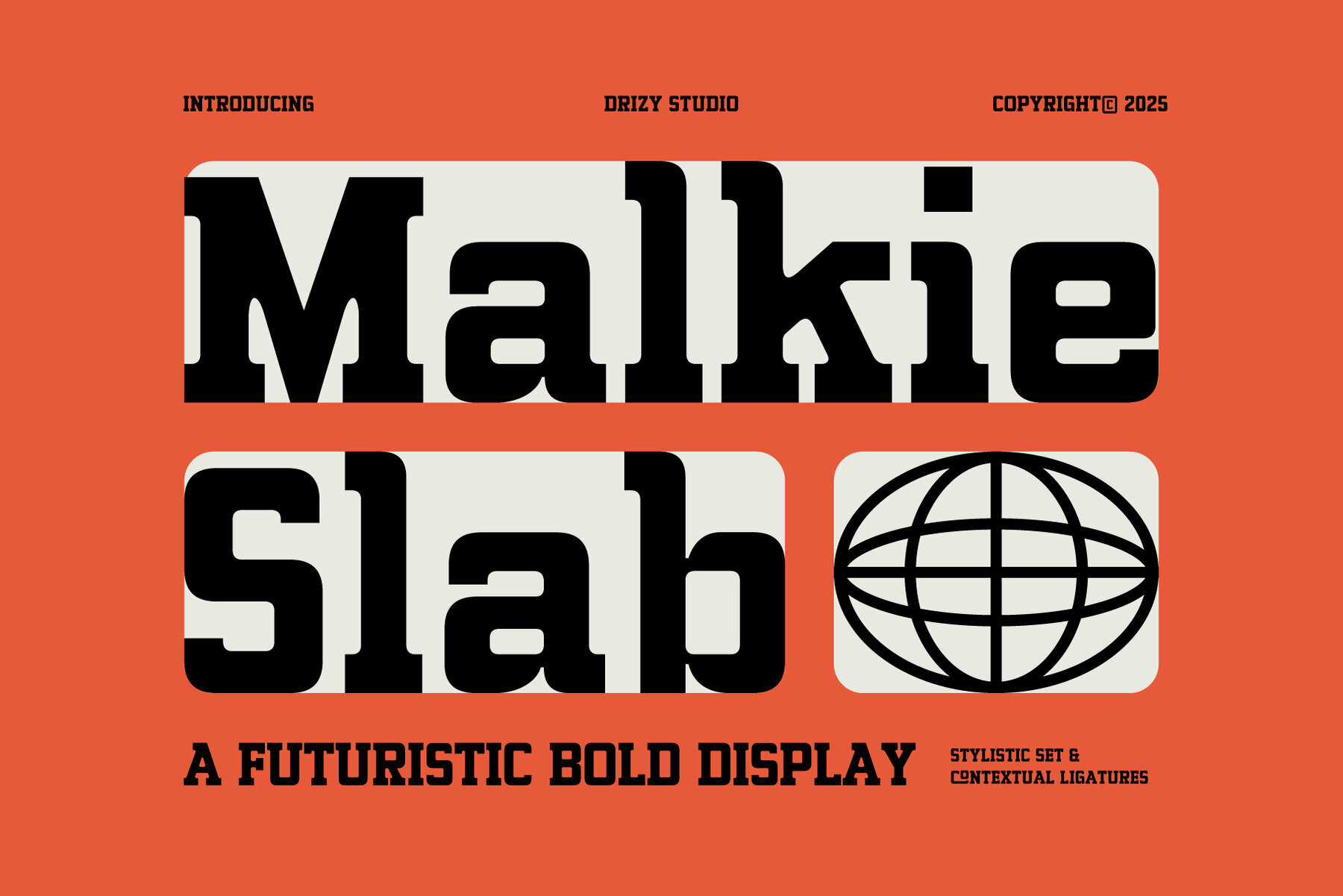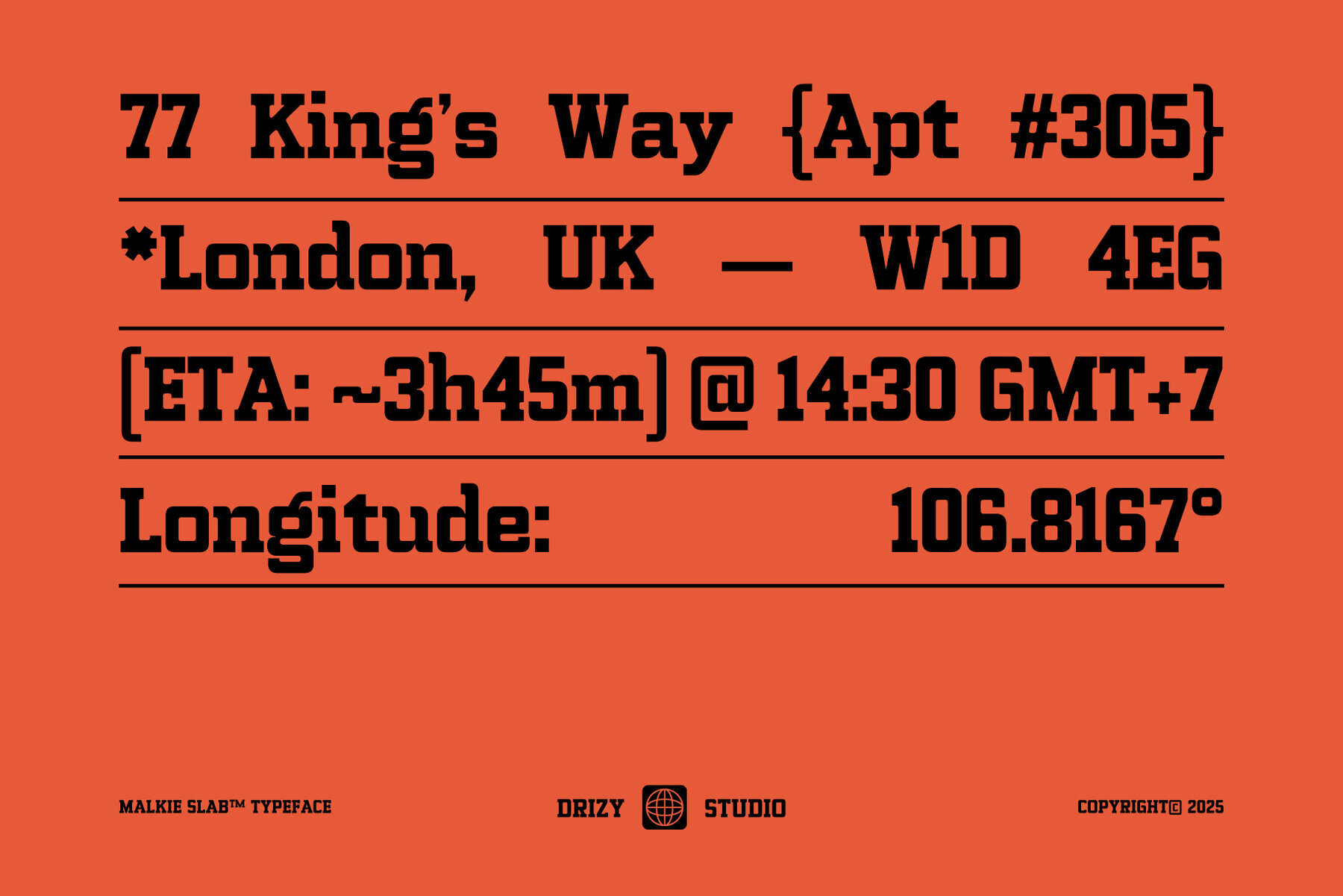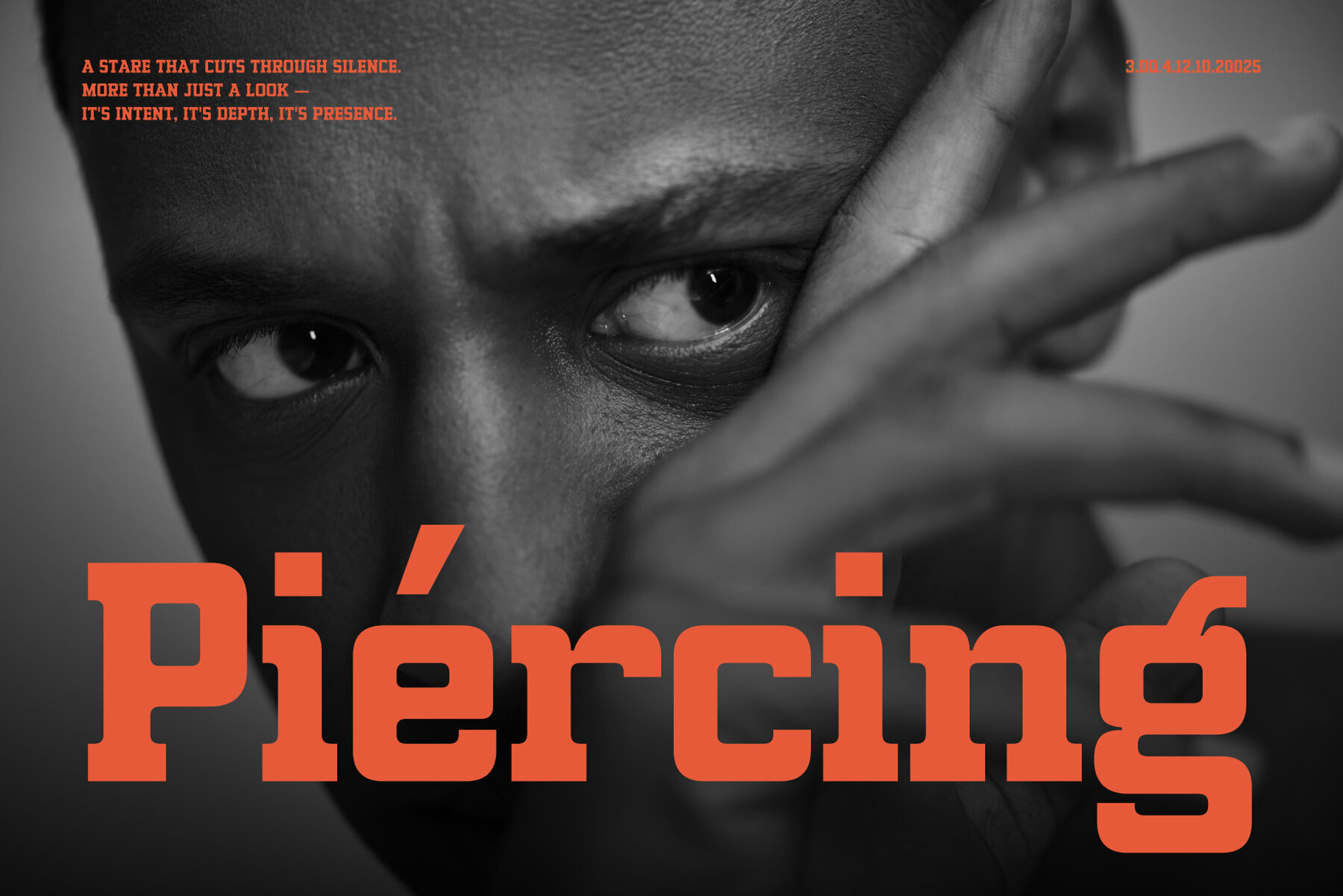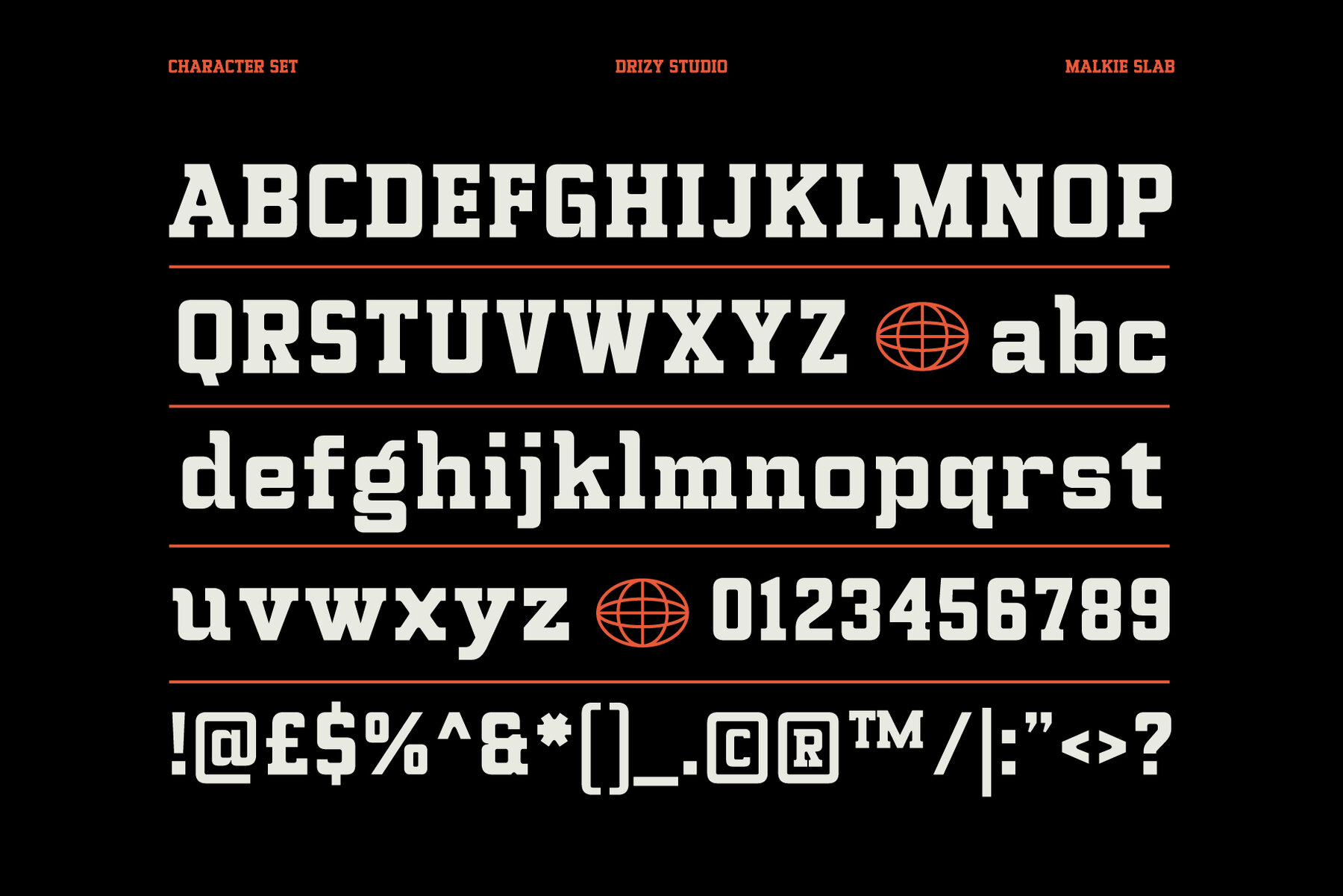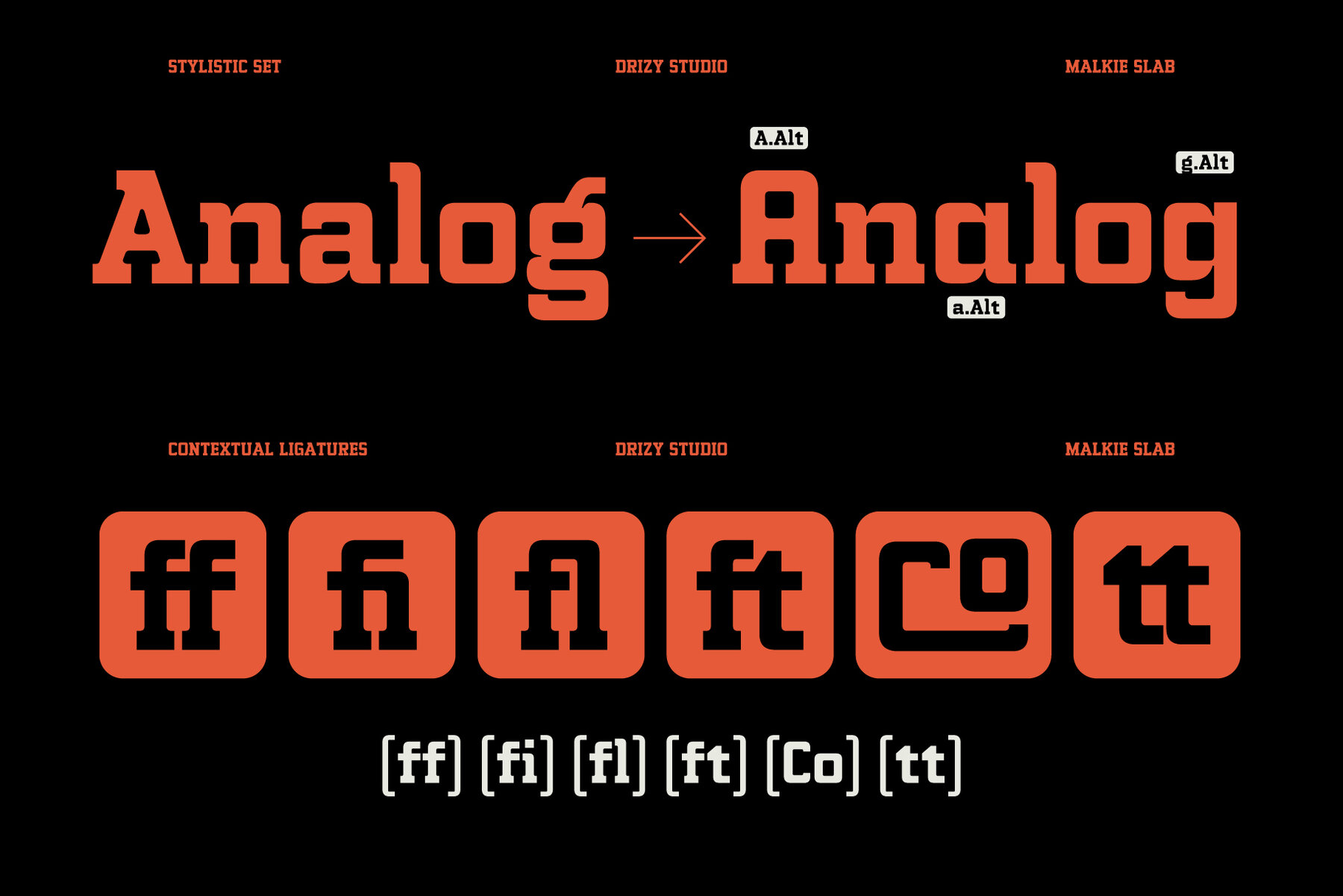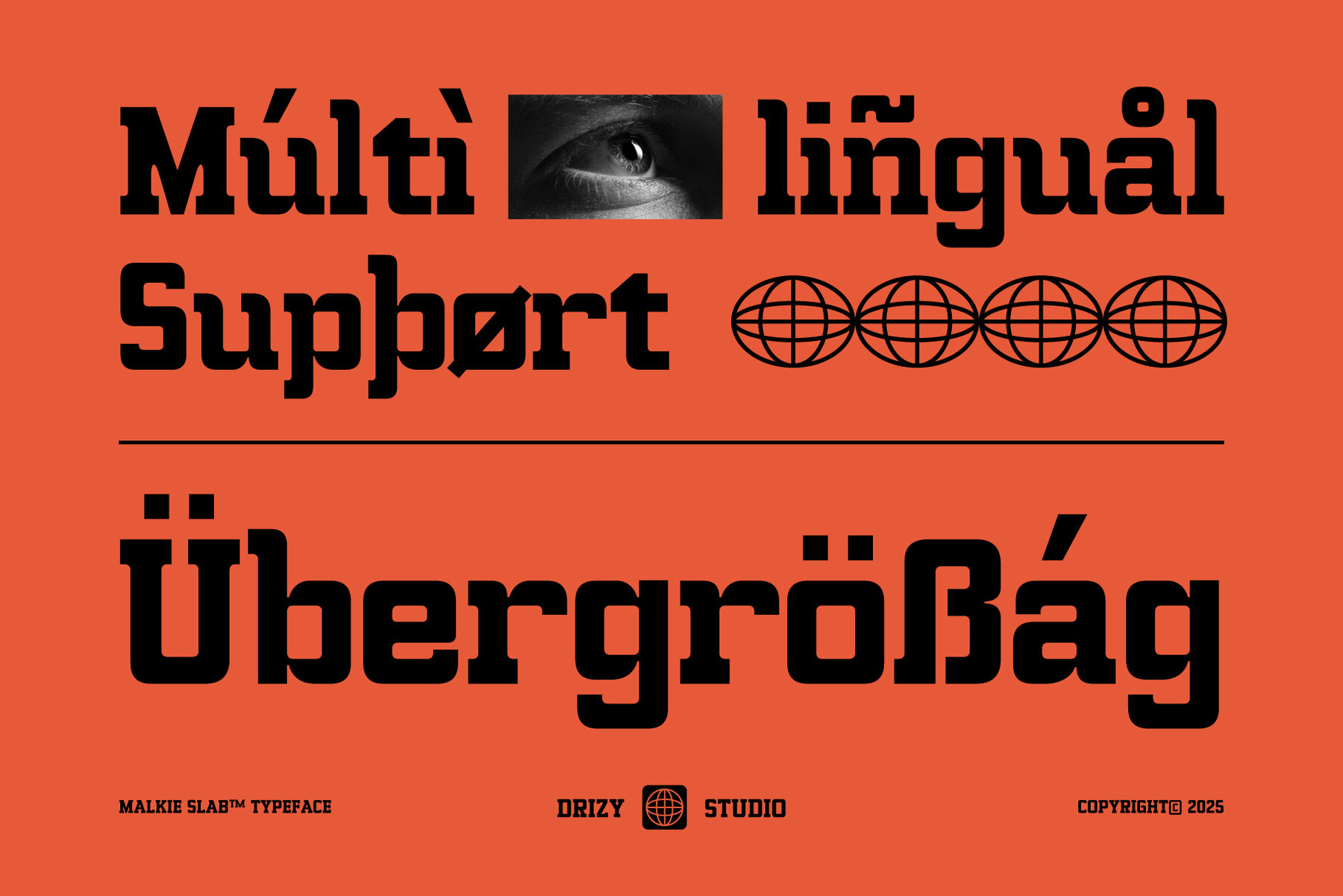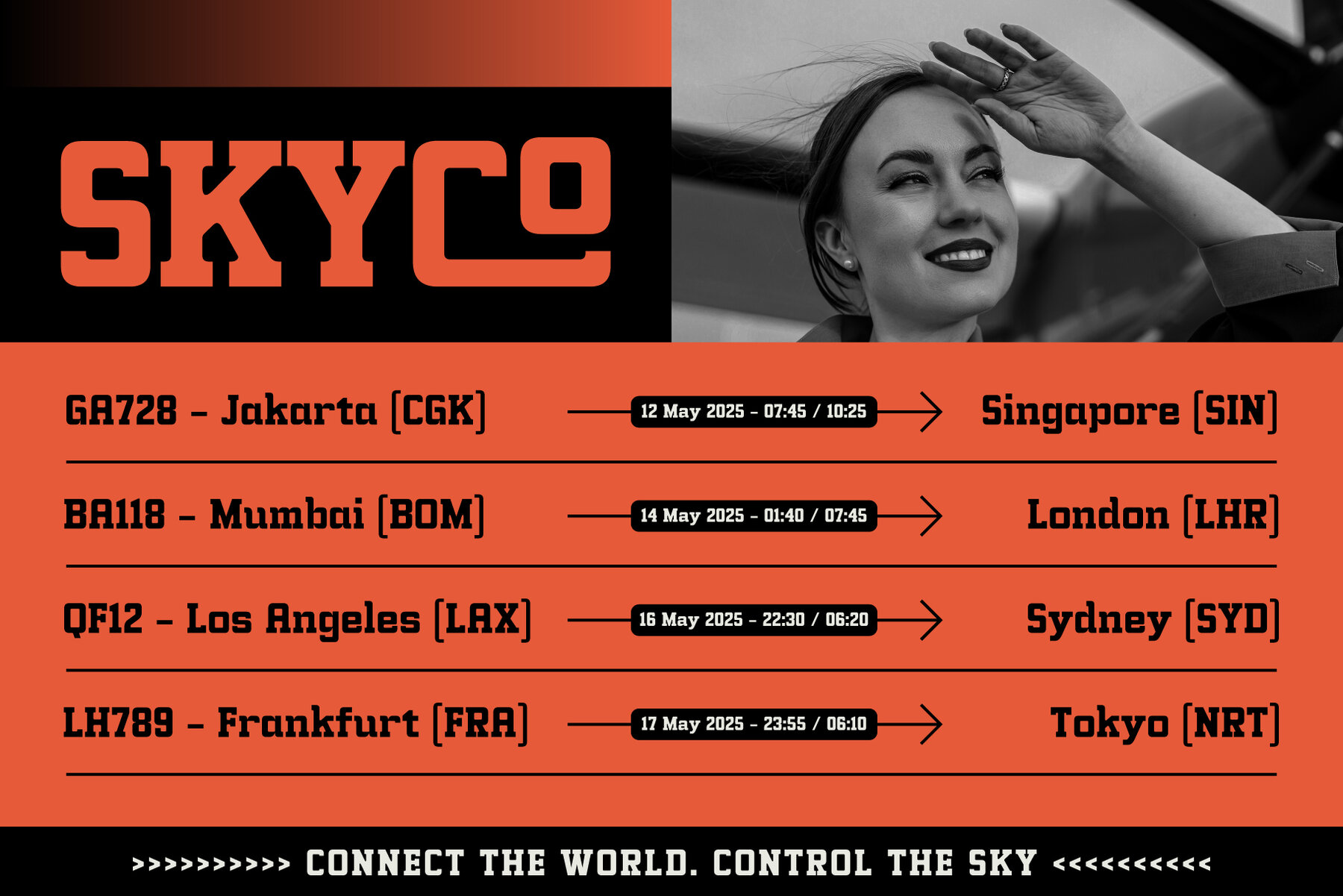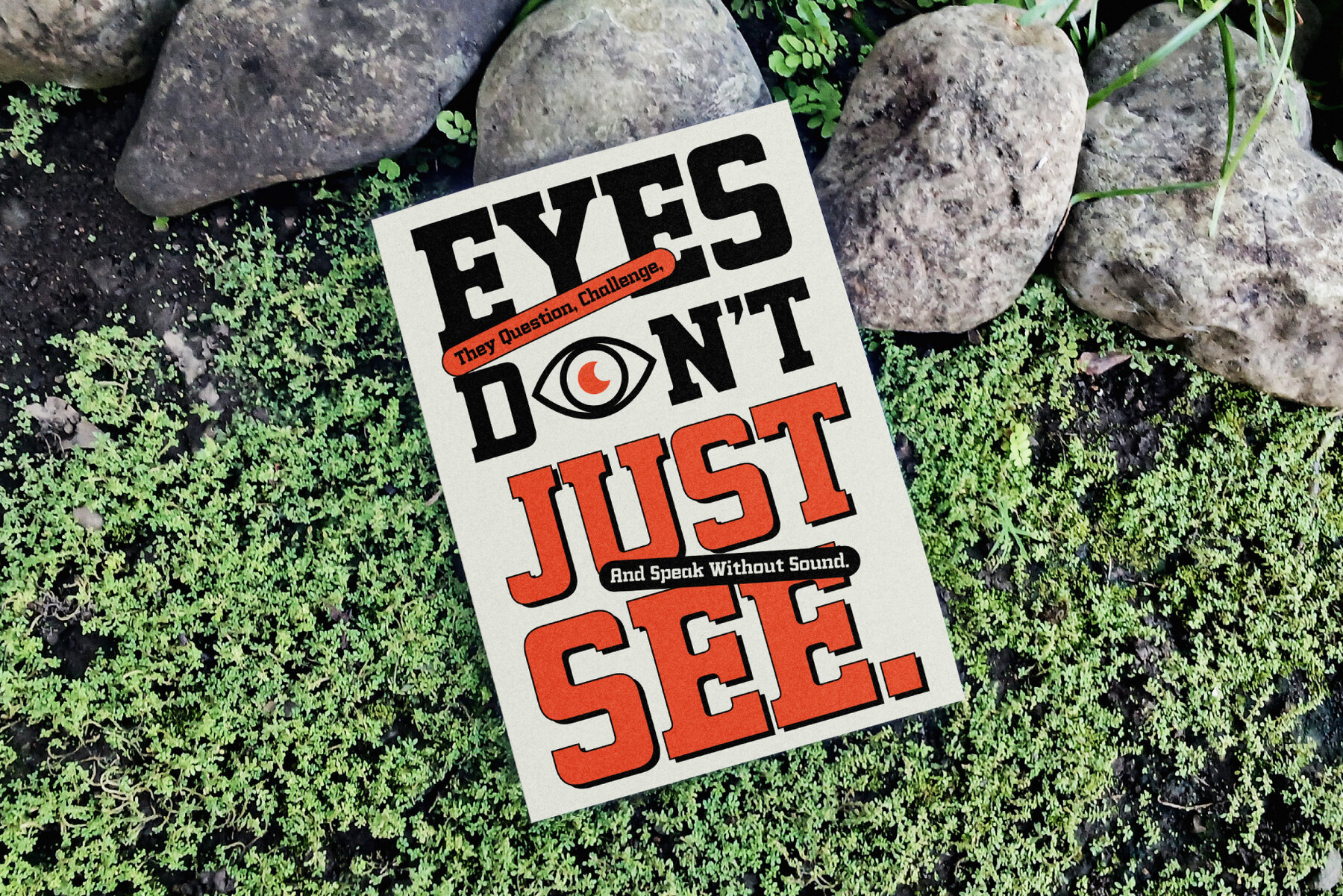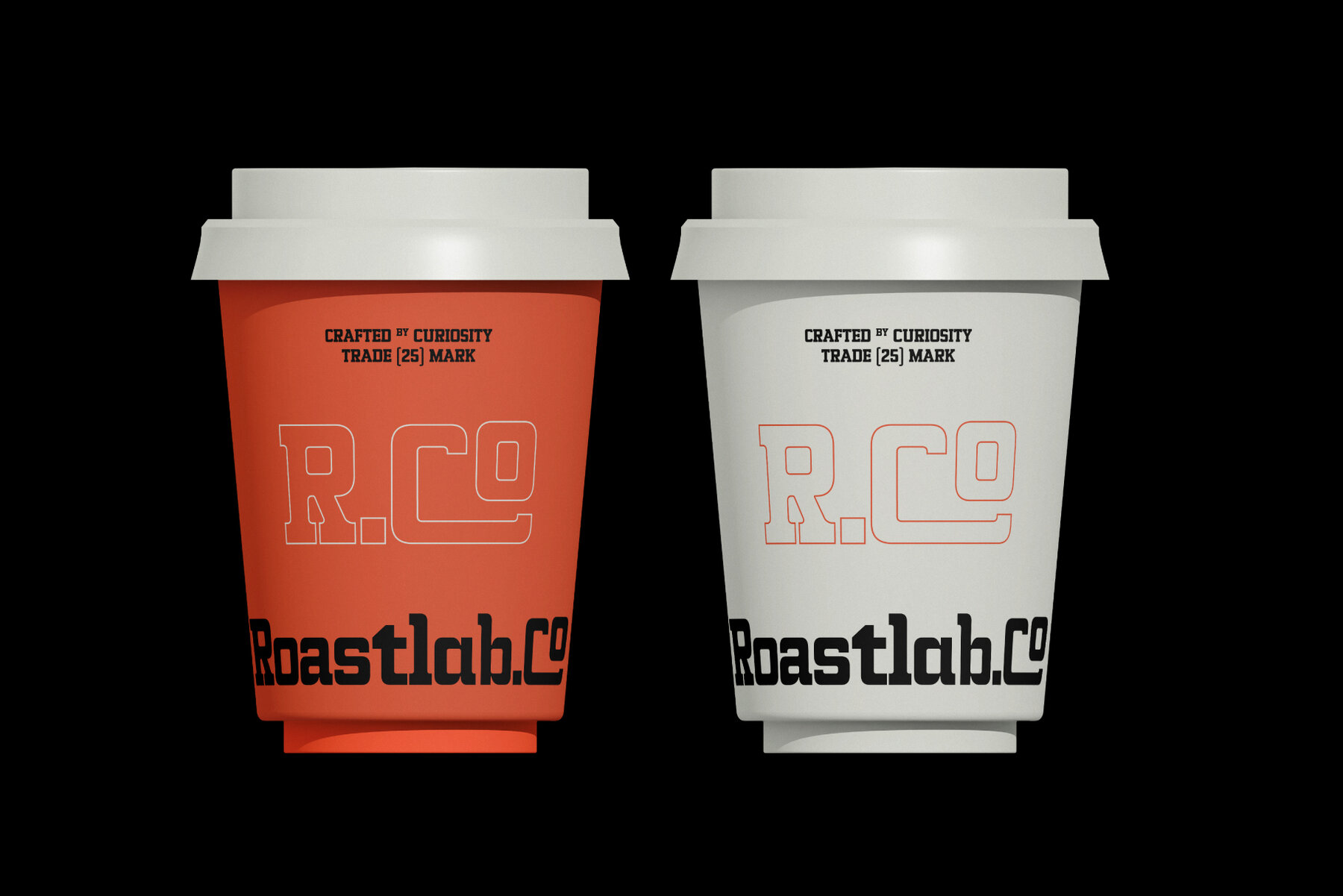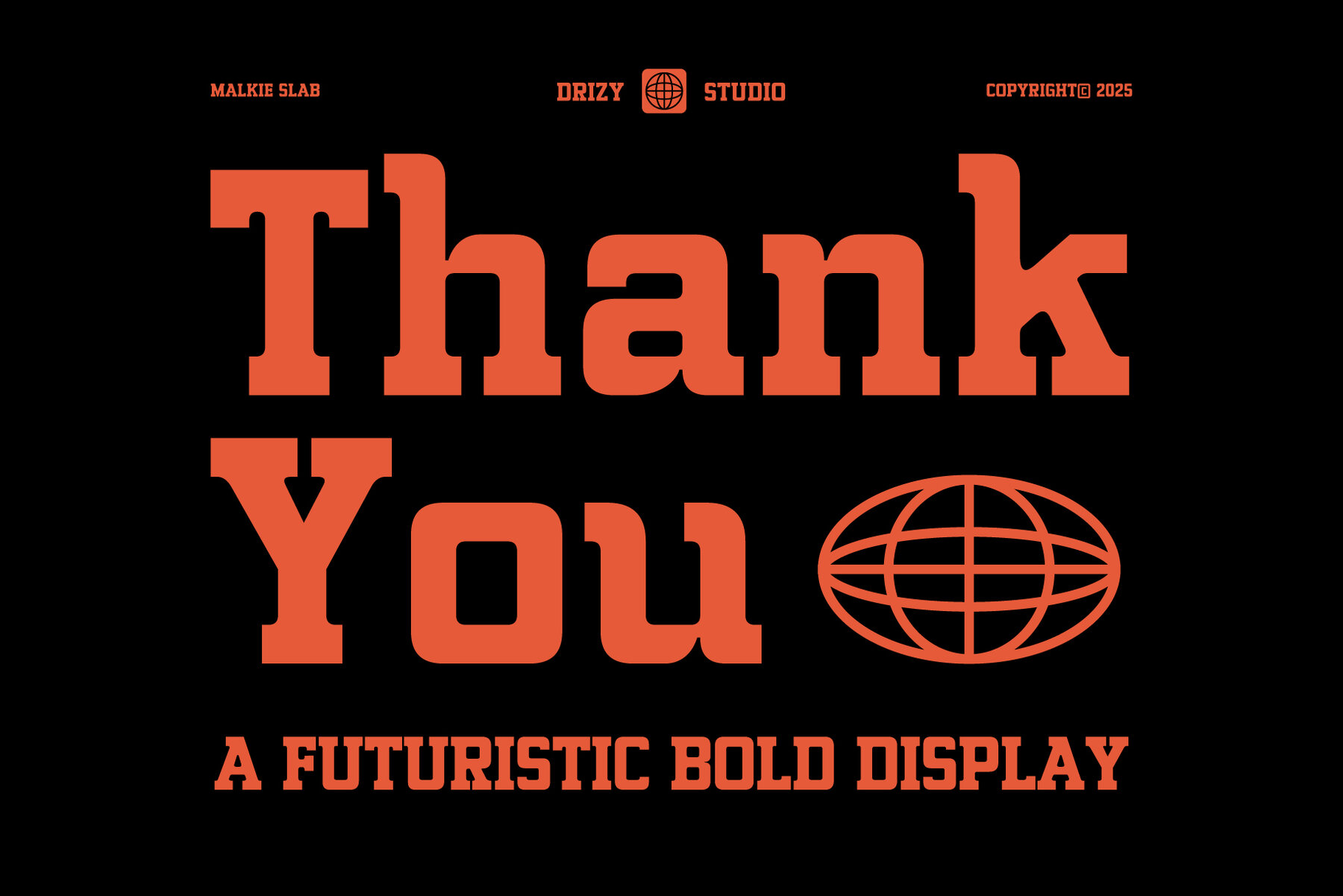
Malkie Slab Font
Malkie Slab Regular
Malkie Slab stands at the forefront of modern typography with its futuristic bold display design. This Square Slab Serif font boasts striking geometric lines and robust serifs, creating a powerful presence perfect for eye-catching contemporary designs. Its unique square-shaped serifs provide a high-tech, futuristic feel while ensuring readability and legibility.Malkie Slab: Futuristic Bold Display Font